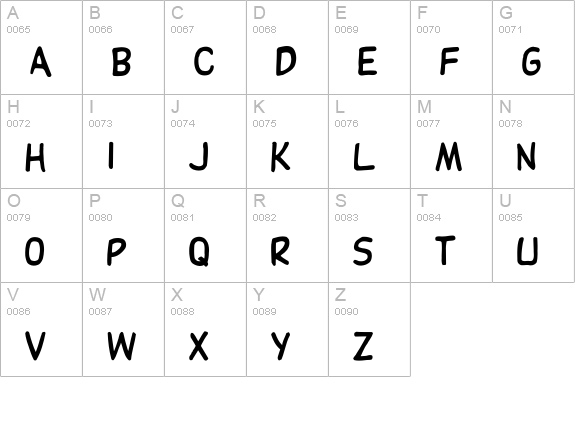
DupuyBALloon Font Details
DupuyBALloon font is a whimsical and playful typeface that exudes a sense of fun and creativity. With its rounded edges and bold, balloon-like shapes, this font is perfect for adding a touch of lightheartedness to your designs. Whether you're working on a poster, invitation, or logo, DupuyBALloon will bring a sense of joy and vibrancy to your project. The best part? DupuyBALloon font is available for free download at FontsMarket.com. So go ahead and add this delightful font to your collection today and let your creativity soar!